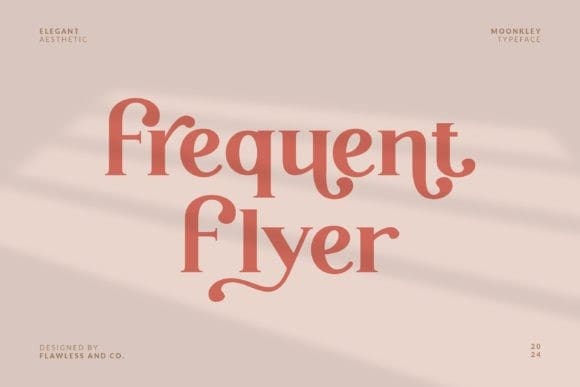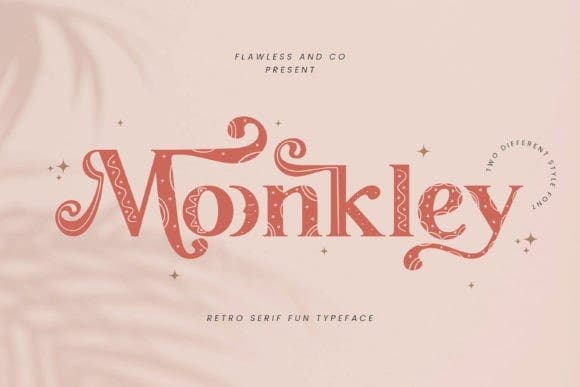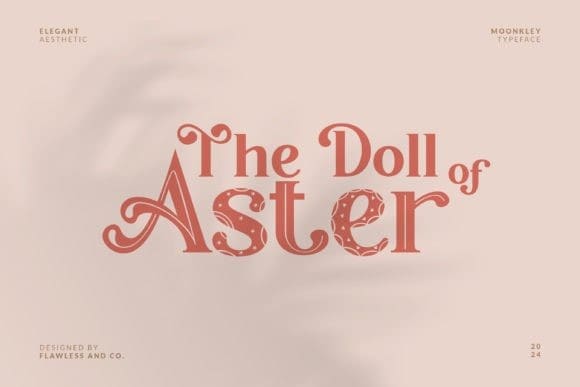
Moonkley Font
Moonkley Font – A Retro Serif Fun Typeface. Embrace the charm of the past with a contemporary twist through “Moonkley Font ,” a font that effortlessly marries retro aesthetics with modern flair. This font has of two distinctive styles – Regular and Fun — adorned with patterns in fun styles that add an extra layer of delight to your designs. This serif typeface is more than letters on a page; it’s a journey into a world where every curve and line tells a story of both nostalgia and innovation.